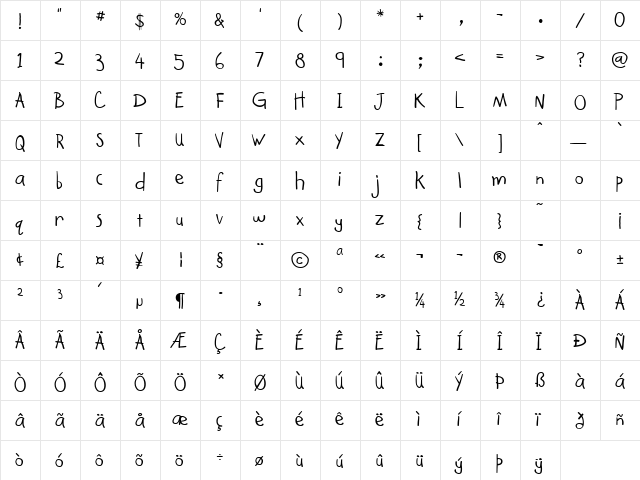
Kindergarten Regular Font Preview
Kindergarten Regular
Kindergarten Regular Font Details
Design Context for Kindergarten Typeface
Kindergarten is a composed and adaptable typeface that performs quietly and consistently across a wide range of design contexts.